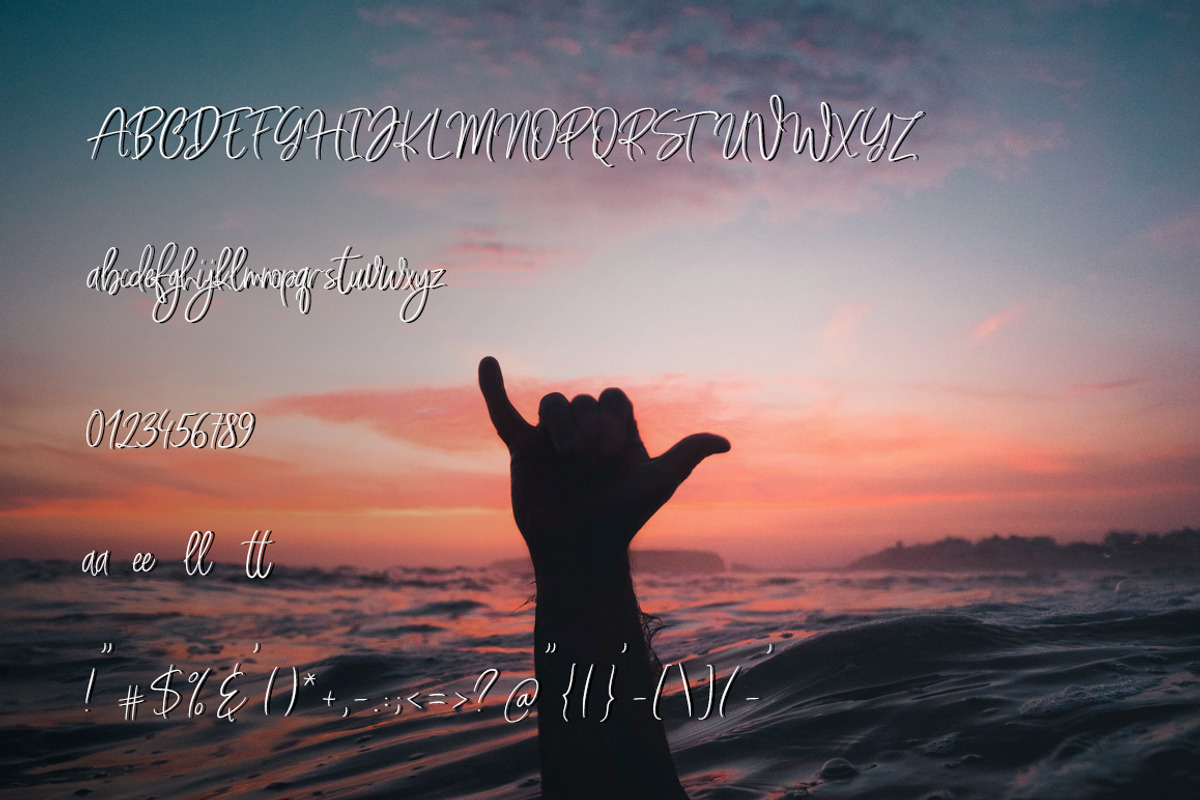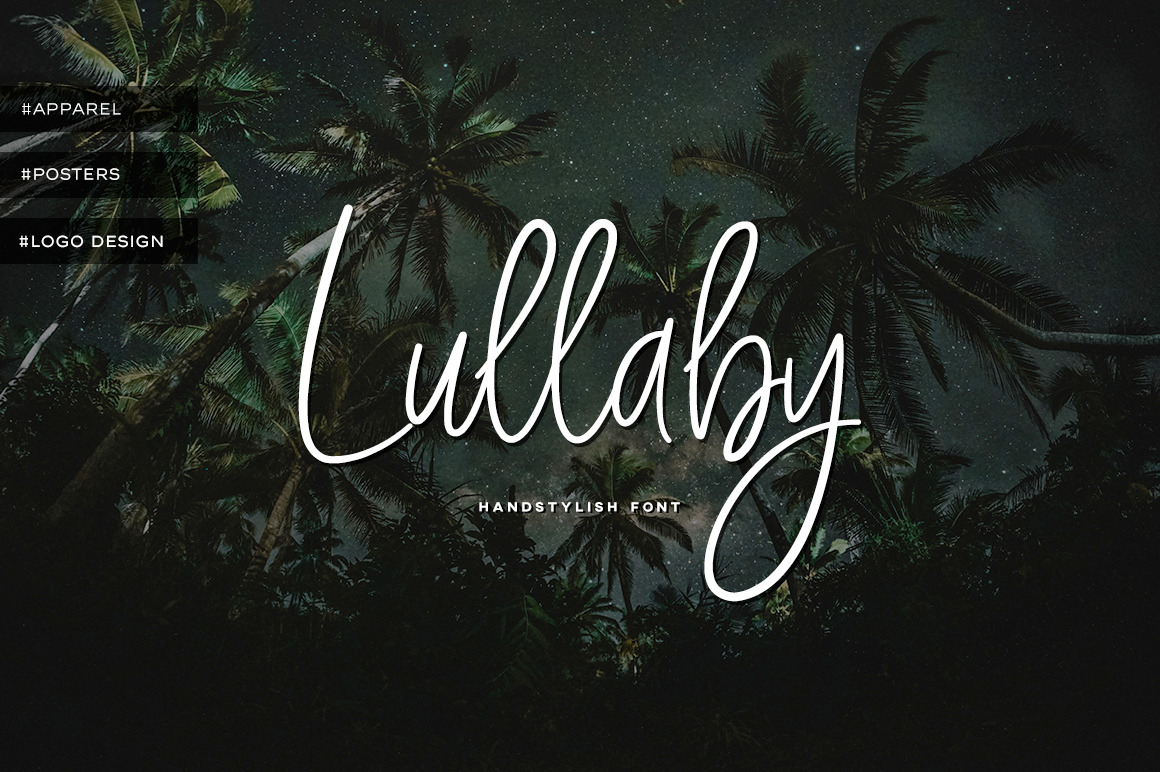
Lullaby Monoline Font
๐ข New Calligraphic Script - LULLABY! ๐ข
๐๐ป This handwritten font fits best for travel print cover and logo designer, poster and appearel designer and can really improve storytelling and give some extra vibes to photographers and filmmakers!
Lullaby script is the best asset in artist inventory!
Roman Alphabet
Numbers and Symbols